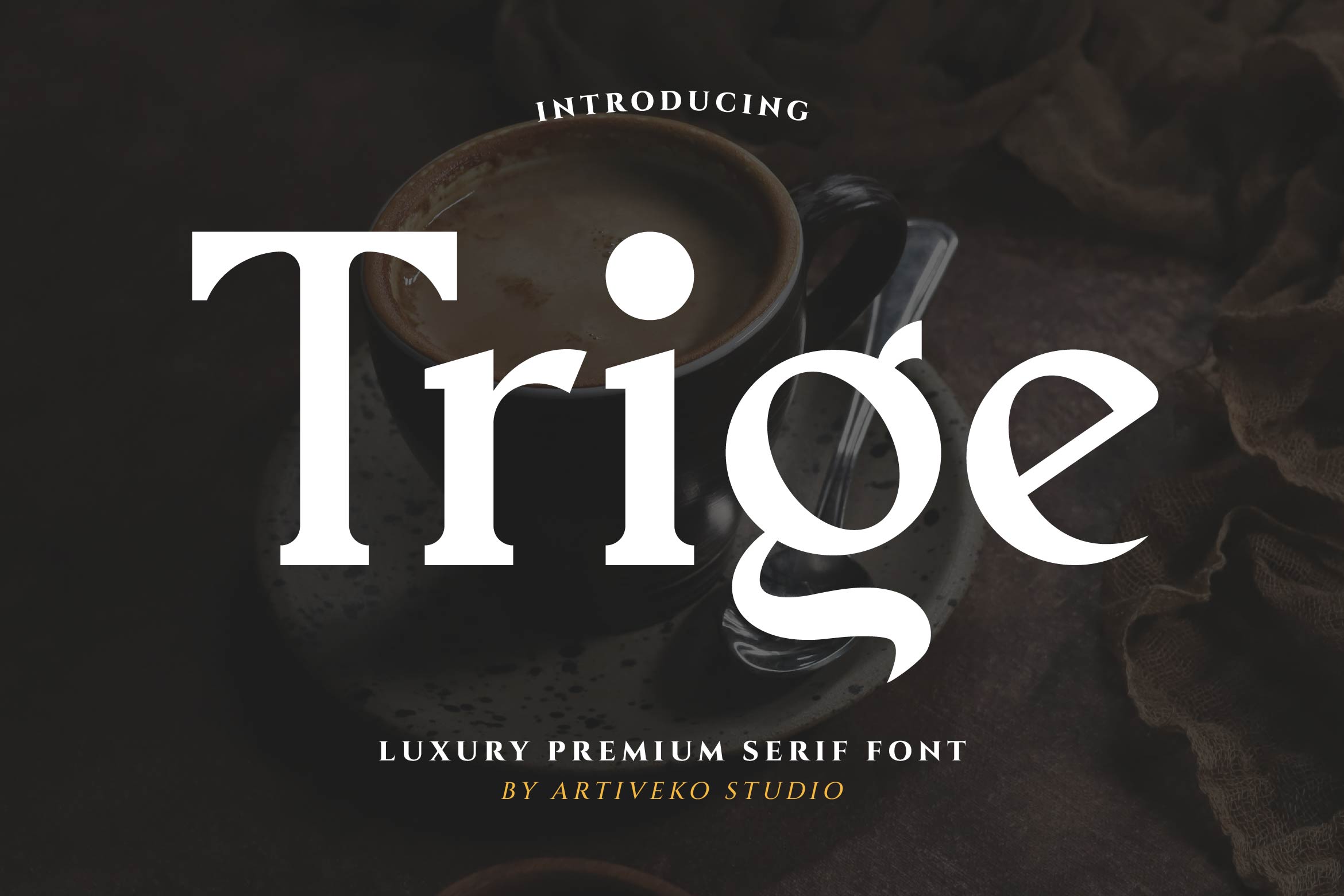
- Trige Elegant Serif Font
Trige is a sophisticated serif typeface designed to bring high-end beauty and refined character to your designs. With its elegant contrast, sharp serifs, and graceful curves, Trige is ideal for luxury branding, editorial layouts, fashion lookbooks, packaging, wedding invitations, and upscale product designs.
Its timeless design offers exceptional legibility and a classic yet modern presence, making it perfect for both headlines and refined body text. Trige blends traditional serif charm with a clean contemporary edge, ideal for brands that value heritage and style.
The font includes uppercase and lowercase letters, numerals, punctuation, multilingual support, ligatures, and stylistic alternates for customization.
Elevate your typography with Trige — the premium serif font that exudes luxury, elegance, and confidence.